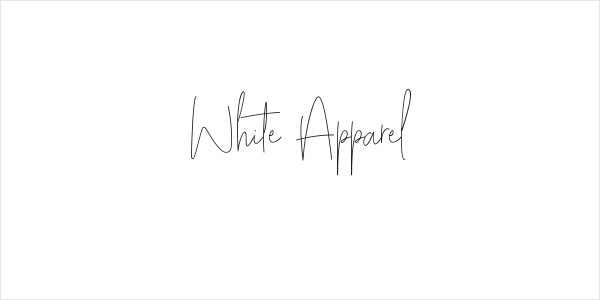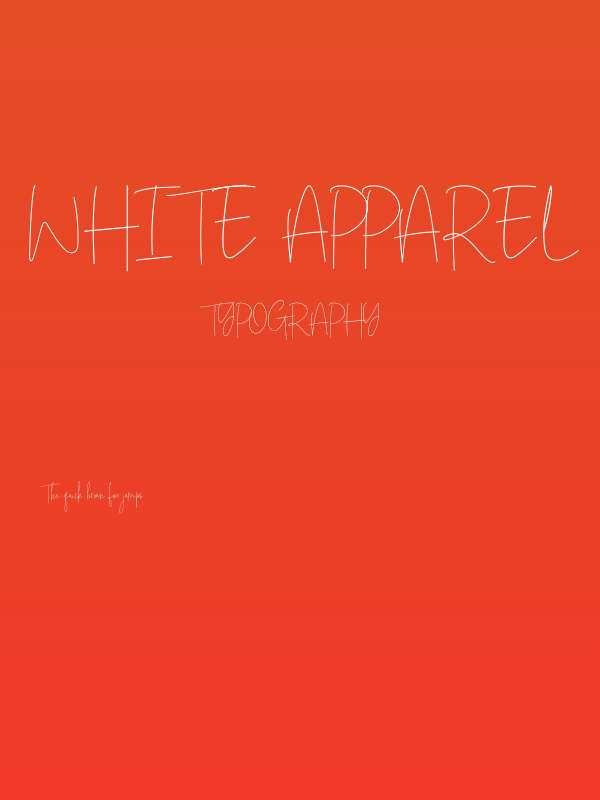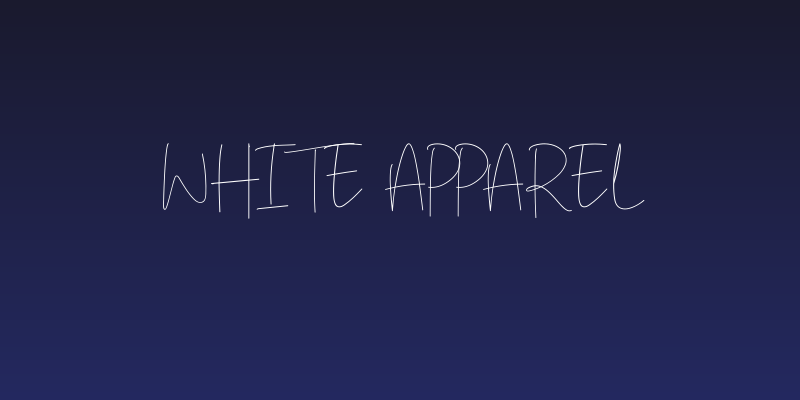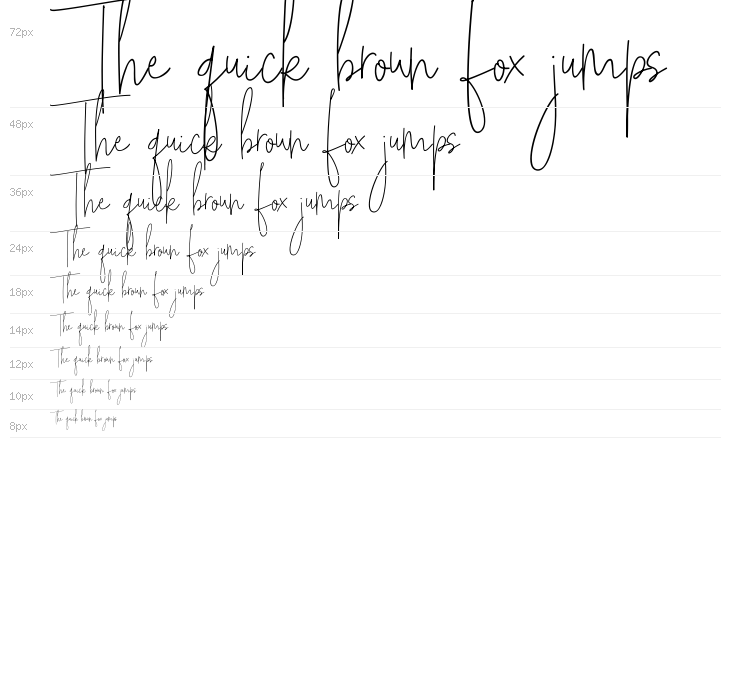
White Apparel Font
White Apparel Description
This font features a handwritten style with a casual and flowing appearance. The letters are thin and elongated, giving a sense of elegance and fluidity. The uppercase and lowercase characters maintain a consistent style, with a slight slant that adds to the informal and personal touch. The numerals are similarly styled, maintaining the overall aesthetic of the font. Special characters are included, matching the playful and artistic nature of the design. This font is ideal for projects that require a personal and creative touch, such as invitations, greeting cards, or artistic branding.
| Use Case | Logos, Artistic projects, Personal branding |
| Proposed Projects | Ideal for invitations, greeting cards, artistic branding, and personal projects. |